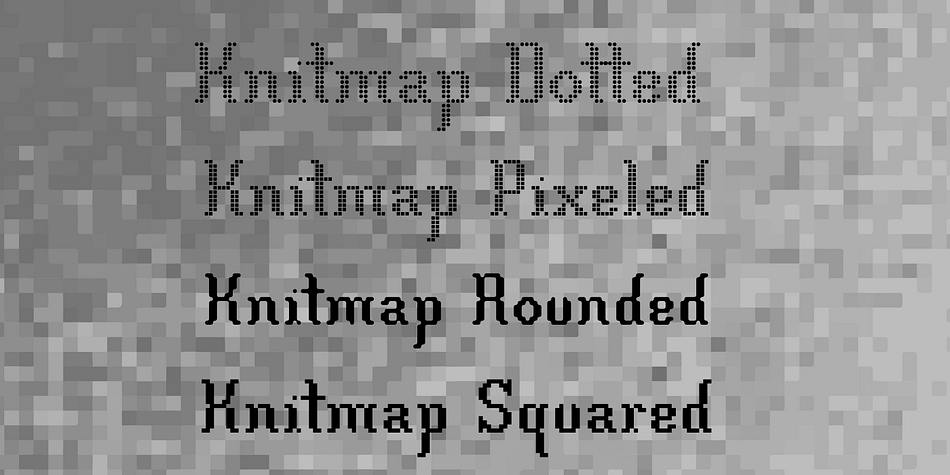
Knitmap
Designed by Christian Belanger, Knitmap is a display, display serif and pixel font family. This typeface has four styles and was published by FontHaus.
The design of the Knitmap font family was inspired by a logo stitched on the elastic band of a pair of shorts. This was at the time when Flash was very popular with its usage of bitmap fonts, especially Miniml’s fonts. Having that in mind, I saw the grid on which the logo was stitched on. So I decided to scan the logo and recreate the whole character set starting with the available letters (“P”, “R”, “O”, “D”, etc.). After that was done, I modified each letter in its grid to make it more of a custom job.
When I was first designing the font, it was called “Prodige 04, a grid based type experiment”, because I wanted to do 4 weights (which I finally did). The font took me an additional year to complete.